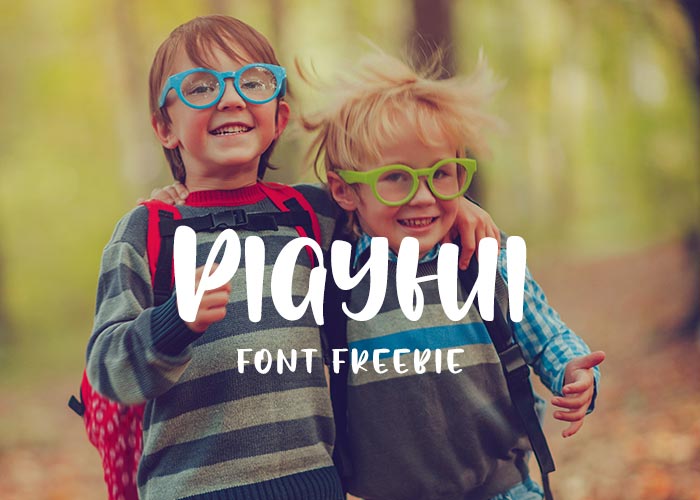
Playful Font – Freebie | Extended License
TL;DR
• Handpicked Playful Handwritten Script font ("Big Stomach" typeface)
• Ideal for social media, banners, thumbnails, cards, invites & more
Playful Font Freebie
Are you working on multiple design projects that require a sassy & playful look?
Searching for perfect fonts can be messy for a designer. Therefore, DealFuel has brought you a Playful Font to create a cheerful & nostalgic design.
Carefully handpicked Playful font is a Handwritten Script font that belongs to the “Big Stomach” Typeface.
Use it for social media posts, banners, thumbnails, cards & invites, and more! You can also use this for multipurpose design, combining your most original ideas to bring them to life.
Sneak Peek Into The Playful Free Font: